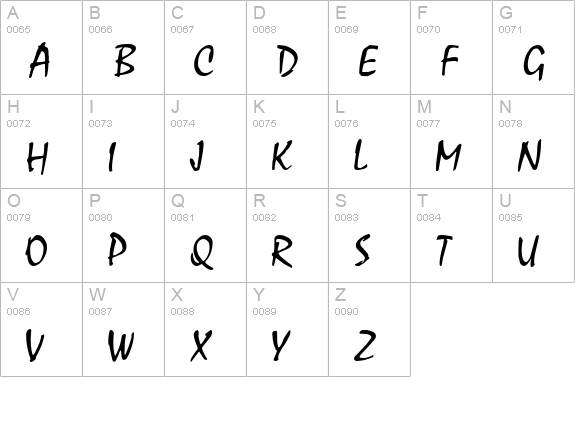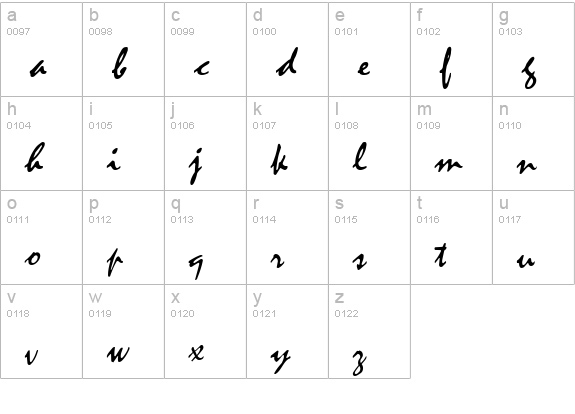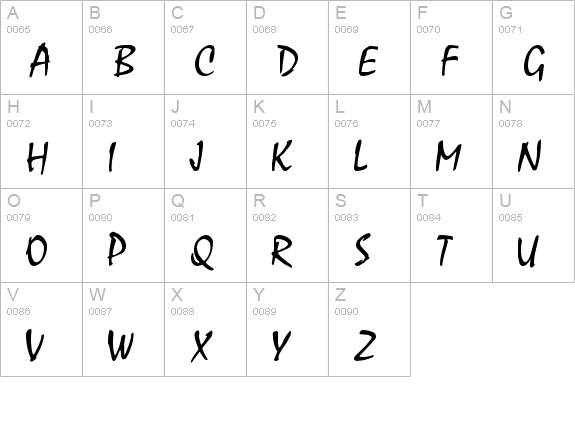
The FFX Handwriting font is a whimsical and charming typeface that exudes a sense of creativity and personal touch. With its unique hand-drawn style, this font adds a playful and organic feel to any design project. Perfect for adding a touch of personality to invitations, posters, social media graphics, and more. What makes the FFX Handwriting font even more appealing is that it is completely free to download. You can easily access this delightful font at FontsMarket.com and start incorporating its artistic flair into your projects today. Don't miss out on this opportunity to enhance your designs with the free-spirited charm of the FFX Handwriting font.